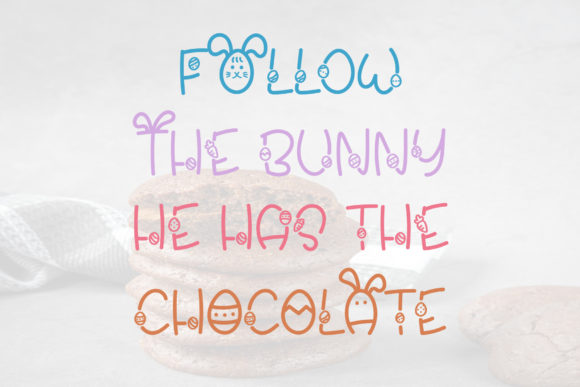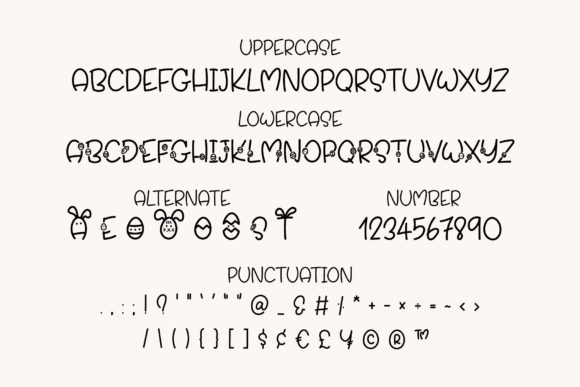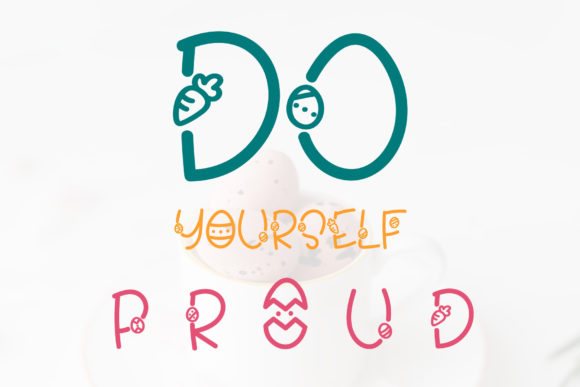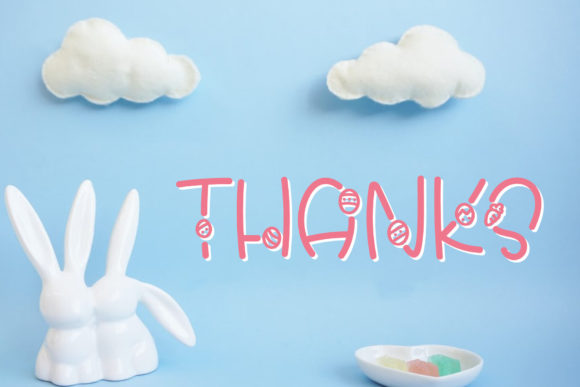
The Easter Egg Font: A Cute and Festive Addition to Your Design Library
I’ll never forget the time I was working on a Easter-themed project for a client, and I just couldn’t find the right font to match the playful and cheerful vibe I was going for. I scoured the internet, tried out dozens of fonts, but nothing seemed quite right. That was until I stumbled upon the Easter Egg font. It was like a breath of fresh air – cute, festive, and jolly, it perfectly captured the spirit of the holiday. In this article, I’ll share my experience with the Easter Egg font, and show you how to make the most of it in your designs.
- ✨ The Easter Egg font is incredibly versatile – it can be used for a wide range of projects, from Easter-themed designs to more general festive and playful content.
- ✅ The font is extremely easy to read, even at small sizes, making it perfect for use in a variety of contexts.
- 🎉 The font has a wide range of OpenType features, including glyphs and stylistic alternates, which allow for a high degree of customization.
While the Easter Egg font is an excellent addition to any design library, it’s not without its quirks. For example:
- 🤔 The font can be a bit overused – with its bold and playful design, it’s easy to rely on it too heavily. Make sure to balance it with other fonts and design elements.
- ⚠️ Some of the more intricate glyphs and stylistic alternates can be a bit finicky to use, especially for beginners.
The Designer Inspiration Behind Easter Egg Font
The Easter Egg font was designed by a team of creatives who wanted to create a font that captured the playful and festive spirit of the Easter holiday. Inspired by traditional Easter decorations and candy, the font features a range of cute and colorful glyphs and stylistic alternates. Whether you’re designing an Easter-themed project or just want to add a touch of whimsy to your designs, the Easter Egg font is sure to delight.
| Font Name | Easter Egg Font |
| Author | Wanida Toffy |
Q: What is the Easter Egg font?
A: The Easter Egg font is a cute, festive, and jolly display font that’s perfect for use in a wide range of designs.
Q: What kind of projects is the Easter Egg font best suited for?
A: The Easter Egg font is incredibly versatile and can be used for a wide range of projects, from Easter-themed designs to more general festive and playful content.